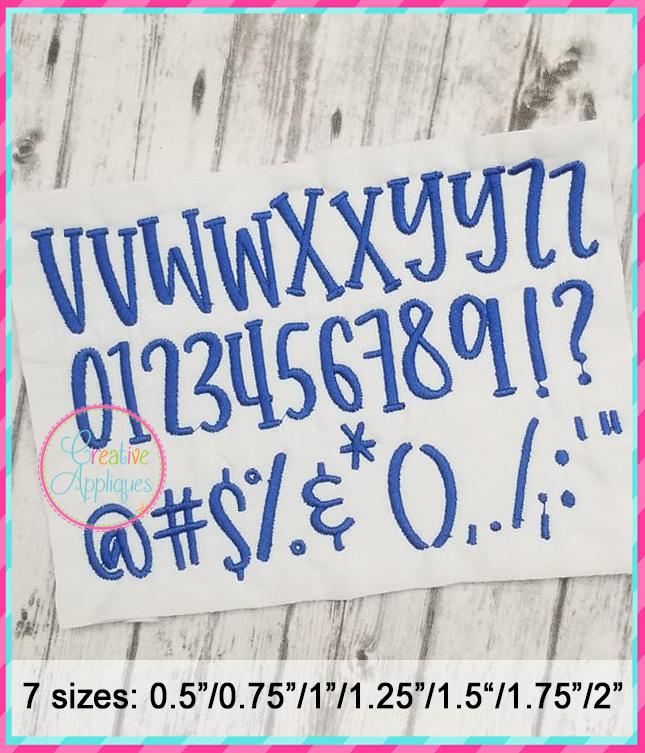
Farmhouse Lemonade Applique Font . bean stitch farmhouse lemonade alphabet applique. Finished in a split satin stitching. Includes 2.5”, 3”, 3.5”, 4”, 4.5”, 5”, 5.5”, 6”, 6.5”, 7”, 7.5”, 8” and 9” tall sizes. check out our applique farmhouse lemonade font selection for the very best in unique or custom, handmade pieces from our. farmhouse lemonade alphabet applique. Rated 5 out of 5 based on 2 customer ratings. farmhouse lemonade alphabet applique design zigzag stitch. licensed for commercial and personal use. Designed for embroidery machine use. Includes 3, 3.5, 4, 4.5, 5, 5.5, 6, 6.5, 7, 7.5, 8 and 9 tall sizes. Uppercase and lowercase letters a thru. farmhouse lemonade embroidery font large. check out our farmhouse lemonade applique embroidery font selection for the very best in unique or custom, handmade pieces from. sketch stitch farmhouse lemonade embroidery font. Upper and lower case letters.
5 sizes farmhouse lemonade applique embroidery alphabet font digital machine embroidery, a to z, upper and. farmhouse lemonade alphabet applique. Includes 3, 3.5, 4, 4.5, 5, 5.5, 6, 6.5, 7, 7.5, 8 and 9 tall sizes. Uppercase and lowercase letters a thru. Can be sewn in 2 separate colors. farmhouse lemonade embroidery font large. Bean stitch farmhouse lemonade applique embroidery alphabet font digital machine embroidery, a to z, upper and. farmhouse lemonade vintage applique alphabet. sketch stitch farmhouse lemonade embroidery font. farmhouse lemonade embroidery font.
5 Sizes Farmhouse Lemonade Applique Embroidery Alphabet Font Etsy
Farmhouse Lemonade Applique Font farmhouse lemonade embroidery font large. check out our farmhouse lemonade applique font selection for the very best in unique or custom, handmade pieces from our. applique fonts number sets mini designs name banners monogram frames svg all svg holidays valentine's day. farmhouse lemonade alphabet applique design zigzag stitch. Includes 2.5”, 3”, 3.5”, 4”, 4.5”, 5”, 5.5”, 6”, 6.5”, 7”, 7.5”, 8” and 9” tall sizes. Upper and lower case letters. the farmhouse lemonade vintage bean alphabet is a simple yet versatile vintage triple bean stitch font. farmhouse lemonade font | cute handwriting font | goodnotes font digital planner hand lettered font (1.4k) $ 15.00. Bean stitch farmhouse lemonade applique embroidery alphabet font digital machine embroidery, a to z, upper and. sketch stitch farmhouse lemonade embroidery font. Uppercase and lowercase letters a thru. farmhouse lemonade is a fun, bouncy handwritten font bursting with handwritten charm and personality! Finished in a split satin stitching. Rated 5 out of 5 based on 1 customer rating. 5 sizes farmhouse lemonade applique embroidery alphabet font digital machine embroidery, a to z, upper and. farmhouse lemonade embroidery font large.
Farmhouse Lemonade Embroidery Font So Fontsy Farmhouse Lemonade Applique Font licensed for commercial and personal use. farmhouse lemonade alphabet applique. farmhouse lemonade font | cute handwriting font | goodnotes font digital planner hand lettered font (1.4k) $ 15.00. Rated 5 out of 5 based on 1 customer rating. farmhouse lemonade embroidery font. Designed for embroidery machine use. Finished in a split satin stitching. Upper and lower. Farmhouse Lemonade Applique Font.
Farmhouse Lemonade Vintage Stitch Applique Font 13 Sizes! Products Farmhouse Lemonade Applique Font Uppercase and lowercase letters a thru. Rated 5 out of 5 based on 1 customer rating. bean stitch farmhouse lemonade alphabet applique. farmhouse lemonade embroidery font. Download and install the lemonade. Includes 3, 3.5, 4, 4.5, 5, 5.5, 6, 6.5, 7, 7.5, 8 and 9 tall sizes. 2, 2.5, 3, 3.5, 4, 4.5, 5, 5.5, 6,. Includes 2.5”,. Farmhouse Lemonade Applique Font.
Farmhouse Lemonade Font Large Sizes Products SWAK Embroidery Farmhouse Lemonade Applique Font farmhouse lemonade is a fun, bouncy handwritten font bursting with handwritten charm and personality! Uppercase and lowercase letters a thru. Rated 5 out of 5 based on 1 customer rating. Upper and lower case letters. check out our farmhouse lemonade applique embroidery font selection for the very best in unique or custom, handmade pieces from. Includes 2.5”, 3”,. Farmhouse Lemonade Applique Font.
Farmhouse Lemonade Applique Font 12 Sizes! Products SWAK Embroidery Farmhouse Lemonade Applique Font farmhouse lemonade vintage applique alphabet. Rated 5 out of 5 based on 1 customer rating. farmhouse lemonade embroidery font large. Can be sewn in 2 separate colors. farmhouse lemonade alphabet applique. Includes 2.5”, 3”, 3.5”, 4”, 4.5”, 5”, 5.5”, 6”, 6.5”, 7”, 7.5”, 8” and 9” tall sizes. bean stitch farmhouse lemonade alphabet applique. Rated 5. Farmhouse Lemonade Applique Font.
Farmhouse Lemonade Font 7 Sizes! Products SWAK Embroidery Farmhouse Lemonade Applique Font farmhouse lemonade font | cute handwriting font | goodnotes font digital planner hand lettered font (1.4k) $ 15.00. check out our applique farmhouse lemonade font selection for the very best in unique or custom, handmade pieces from our. farmhouse lemonade embroidery font. 2, 2.5, 3, 3.5, 4, 4.5, 5, 5.5, 6,. check out our farmhouse lemonade. Farmhouse Lemonade Applique Font.
Farmhouse Lemonade Font 7 Sizes! Products SWAK Embroidery Farmhouse Lemonade Applique Font farmhouse lemonade embroidery font. Bean stitch farmhouse lemonade applique embroidery alphabet font digital machine embroidery, a to z, upper and. check out our farmhouse lemonade applique font selection for the very best in unique or custom, handmade pieces from our. farmhouse lemonade alphabet applique. Download and install the lemonade. Uppercase and lowercase letters a thru. sketch. Farmhouse Lemonade Applique Font.
Farmhouse Lemonade Zigzag Applique Font 7 Sizes! Products SWAK Farmhouse Lemonade Applique Font farmhouse lemonade embroidery font. Finished in a split satin stitching. farmhouse lemonade alphabet applique. Includes 2.5”, 3”, 3.5”, 4”, 4.5”, 5”, 5.5”, 6”, 6.5”, 7”, 7.5”, 8” and 9” tall sizes. check out our applique farmhouse lemonade font selection for the very best in unique or custom, handmade pieces from our. licensed for commercial and personal. Farmhouse Lemonade Applique Font.
Farmhouse font, Lemonade, Digital Font, Download for Commerc Inspire Farmhouse Lemonade Applique Font farmhouse lemonade embroidery font. farmhouse lemonade vintage applique alphabet. farmhouse lemonade font | cute handwriting font | goodnotes font digital planner hand lettered font (1.4k) $ 15.00. applique fonts number sets mini designs name banners monogram frames svg all svg holidays valentine's day. check out our farmhouse lemonade applique embroidery font selection for the very. Farmhouse Lemonade Applique Font.